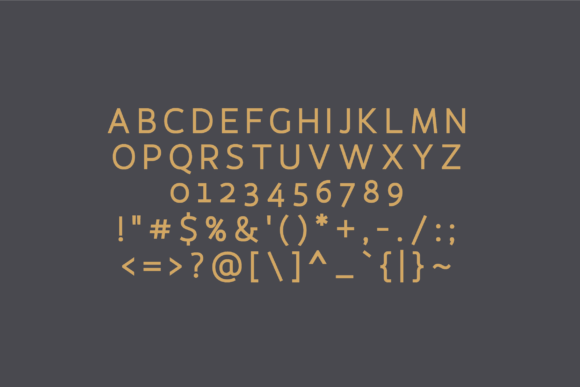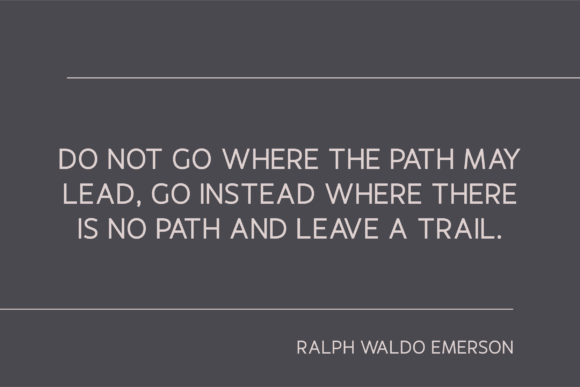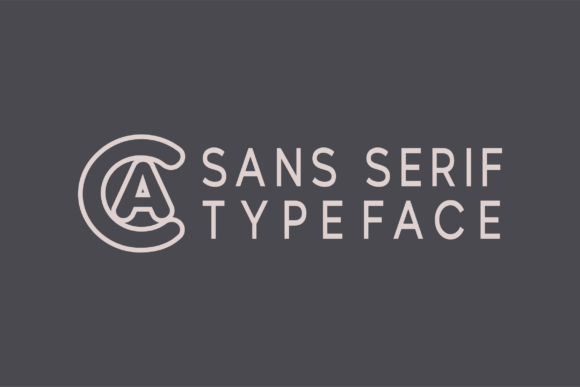
The Groovetide Font: A Bold, Modern Sans-Serif for Impactful Designs
Have you ever been in the middle of a design project, and suddenly, you’re stuck on finding the perfect font? I recall a recent experience where I was working on a branding project for a tech startup, and I just couldn’t find a font that screamed confidence and modernity. That’s when I stumbled upon the Groovetide font. In this article, we’ll dive into the world of Groovetide, exploring its features, uses, and what makes it an excellent addition to your design toolkit.
First Impressions: A Bold and Modern Sans-Serif
Groovetide is a bold, modern, all-caps sans-serif font designed to make a statement. Its clean lines and impactful visuals make it perfect for logos, headlines, posters, packaging, and digital content. This typeface brings a strong, confident look to any design, making it ideal for branding, tech, fashion, and creative projects. With its standard Latin characters, punctuation, and numerals, Groovetide is simple to use and highly versatile.
- ✨ Clean and Impactful Visuals: Groovetide’s bold design makes it perfect for creating eye-catching visuals.
- ✅ Highly Versatile: This font can be used for a wide range of projects, from branding to digital content.
- 💡 Easy to Read: Despite its bold design, Groovetide remains clear and easy to read, even at smaller sizes.
- 🤔 Limited Character Set: Groovetide only includes standard Latin characters, punctuation, and numerals. If you need a font with an extended character set, this might not be the best choice.
- ⚠️ Not Suitable for Body Text: Due to its bold design, Groovetide is not ideal for body text. It’s best used for headlines, titles, and emphasis.
Groovetide supports OpenType features, which allow you to access additional glyphs and stylistic alternates. To access these features, you’ll need to use a design application that supports OpenType, such as Adobe Photoshop or Illustrator.
Some common OpenType features include:
- Ligatures: These are special character combinations that can be used to create more visually appealing text.
- Stylistic Alternates: These are alternative glyphs that can be used to create a more customized look.
The Designer Inspiration Behind Groovetide
Groovetide was designed with the modern designer in mind. Its clean lines and bold design make it perfect for creating impactful visuals. The designer behind Groovetide drew inspiration from the world of tech and fashion, creating a font that’s both stylish and professional.
Q: What is the Groovetide font?
A: Groovetide is a bold, modern, all-caps sans-serif font designed for clean, impactful visuals.
Q: What can I use the Groovetide font for?
A: Groovetide is perfect for logos, headlines, posters, packaging, and digital content.
Q: Is Groovetide easy to read?
A: Yes, despite its bold design, Groovetide remains clear and easy to read, even at smaller sizes.
Q: Can I use Groovetide for body text?
A: No, Groovetide is not ideal for body text. It’s best used for headlines, titles, and emphasis.